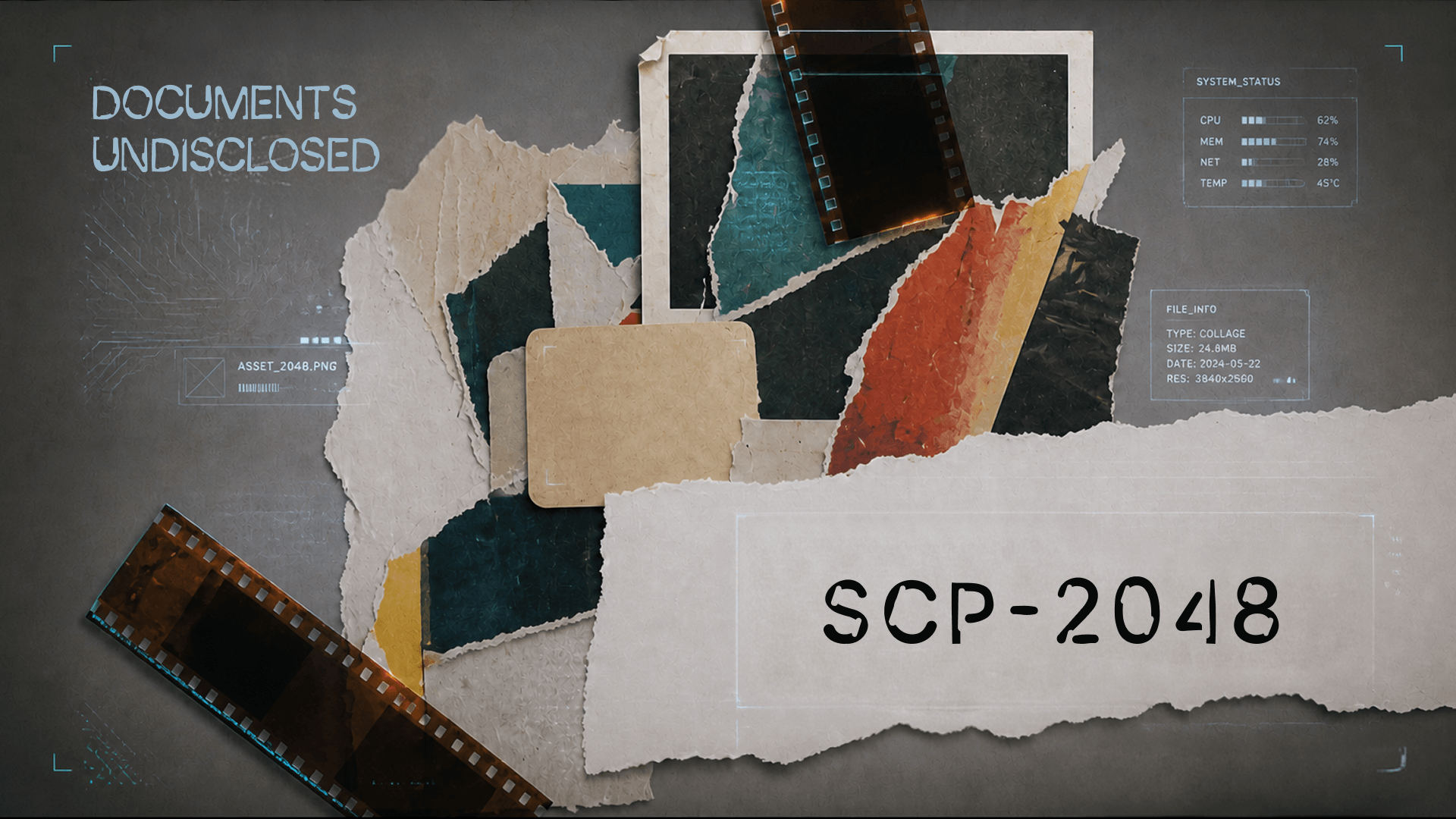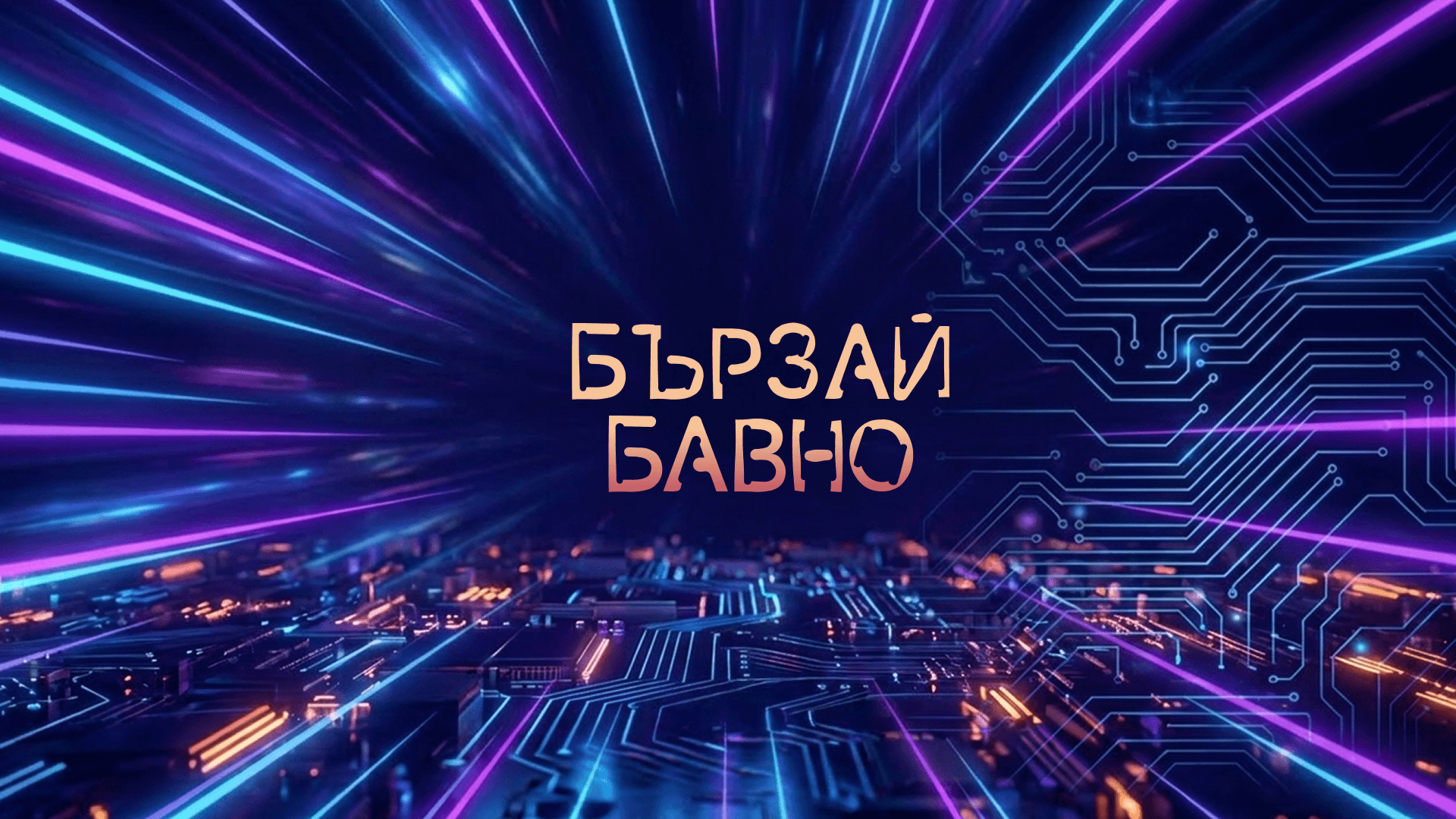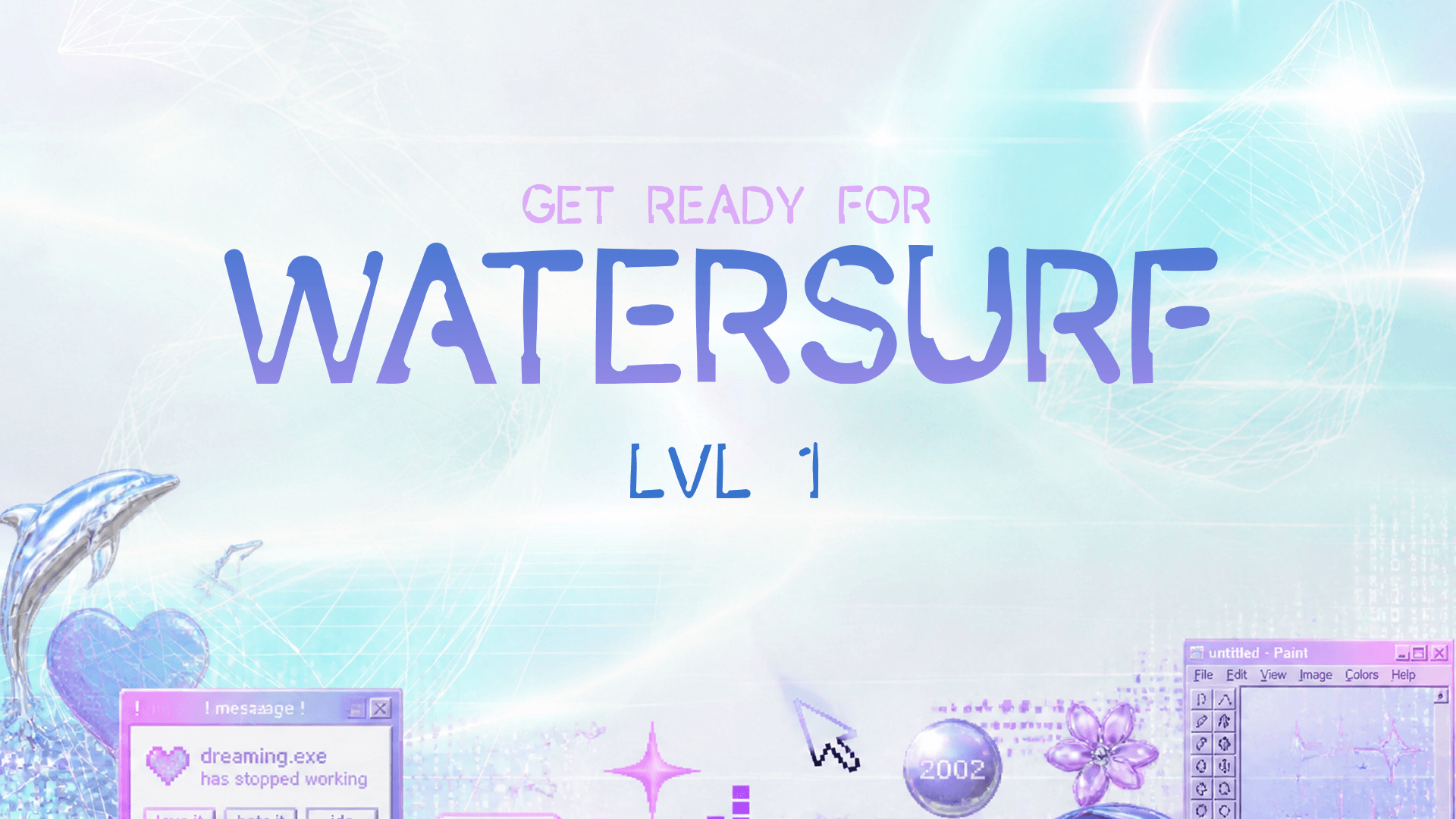
Experimental Destroyed Broken Aesthetic ver 002-r
Artefakt Regular
is a typeface created by NeedMoreFonts.It is a free Latin and Bulgarian Cyrillic font licensed under SIL OFL. It's messy, punctured and rhythmic.
Specimen of Artefakt Regular showing a game loading screenin a Y2K aesthetic. Specimen of Artefakt Regular showing a mystery SCP vibe thriller mystery image. Specimen of Koysca Display showing Bulgarian localized uppercase glyphs like б, з, й and а. Specimen of Artefakt Regular showing an icy title screen.